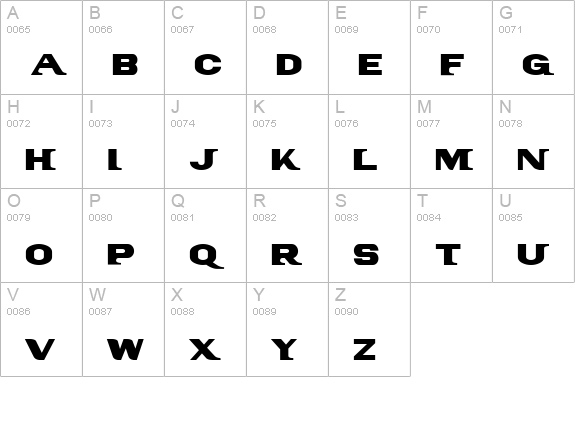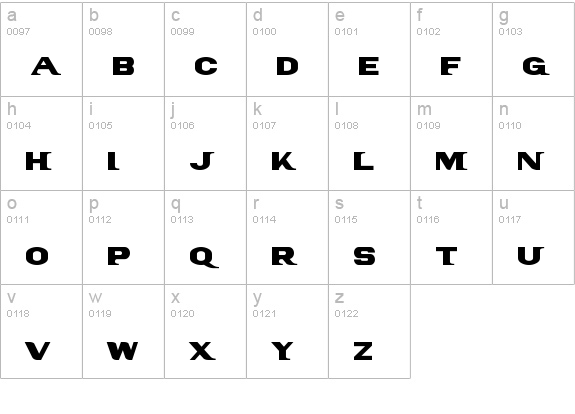
PanAmTextCaps Font Details
Introducing PanAmTextCaps font, the perfect blend of classic elegance and modern appeal. This exquisite typeface is designed to elevate your designs and captivate your audience with its timeless charm. PanAmTextCaps font features beautifully crafted uppercase letters, meticulously designed to exude sophistication and professionalism. Each letter is expertly balanced, ensuring a seamless flow of text that is both visually pleasing and easy to read. This versatile font is suitable for a wide range of design projects, from elegant invitations and stylish logos to eye-catching headlines and editorial layouts. Its clean lines and sharp angles give it a contemporary edge, while its carefully chosen proportions and intricate details add a touch of refinement. But here's the best part – PanAmTextCaps font is available for free! Yes, you read that right. This stunning typeface can be freely downloaded at FontsMarket.com, making it accessible to designers and creatives of all levels. Whether you're a seasoned professional or just starting out, PanAmTextCaps font is here to enhance your designs without breaking the bank. So why wait? Elevate your designs to new heights with PanAmTextCaps font. Download it now from FontsMarket.com and discover the endless possibilities it brings to your projects. With its timeless elegance, impeccable craftsmanship, and the added bonus of being free, PanAmTextCaps font is a must-have addition to your typographic arsenal.